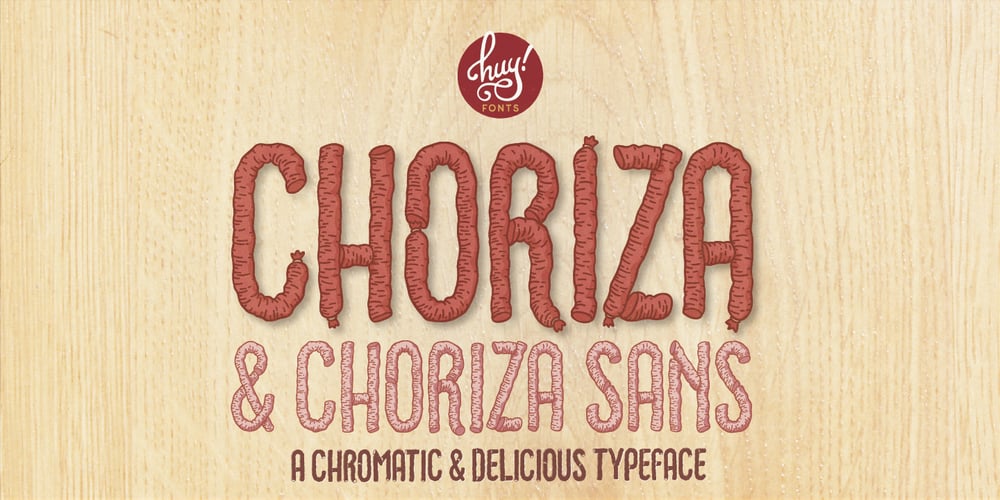
Choriza Font Family was designed by Juanjo Lopez and published by Huy!Fonts. Choriza contains 6 styles and family package options. Choriza is a multilayered font and a kind of spicy spanish sausage. With three layers you can colour any salami, salchichen, sausage, wurst or pudding. Chorizo also means burglar in spanish, so it’s some sort of typographical joke about the today’s spanish politicians. It comes with Choriza Sans, with its cutted ends to make a sans serif version.